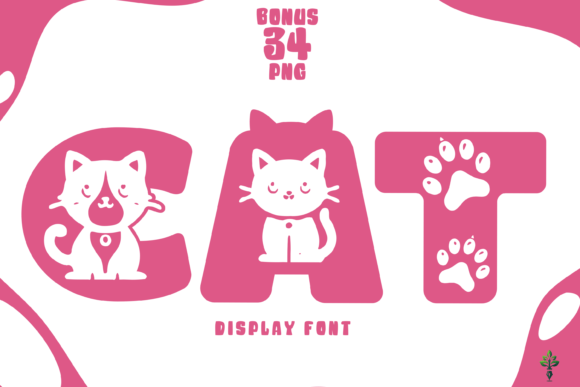
Unleashing Whimsy: The Magical World of Cat Font
I’ll never forget the moment I stumbled upon the perfect font for a children’s t-shirt design project. I was on a tight deadline, and my client wanted something that would make their little ones giggle with delight. As I scrolled through font after font, nothing seemed quite right – until I met Cat. This charming, whimsical typeface has been a game-changer for my designs, and I’m excited to share its magic with you.
I’ve had the pleasure of working with Cat font for several projects, and here’s what I think:
- ✨ Playful Personality: Cat font exudes a sense of fun and playfulness, making it perfect for children’s designs, nursery decor, and even digital art.
- ✅ Ease of Use: The font is surprisingly versatile and easy to use, even for those who aren’t seasoned designers.
- 💫 Attention to Detail: The font’s intricate details and artistic flair make it a standout in any design.
Of course, no font is perfect, and I’ve encountered a few minor quirks:
- 🤔 Limited Formality: Cat font is, by design, quite informal. It might not be the best fit for more serious or corporate projects.
- ⚠️ Occasional Kerning Issues: As with any font, there might be some kerning issues, especially when using all-caps or mixing with other fonts.
- Experiment with OpenType features, such as Stylistic Alternates and Swashes, to add visual interest.
- Explore the Glyphs panel to access additional characters, such as ligatures and stylistic alternates.
The Story Behind Cat Font
According to its creators, Cat font was inspired by the simple joys of childhood – laughter, playtime, and imagination. The designers aimed to craft a font that would evoke a sense of wonder and magic, perfect for bringing children’s creations to life.
| What makes Cat font so special? | Cat font’s unique blend of artistic flair and playfulness makes it perfect for children’s designs and creative projects. |
| Is Cat font suitable for digital art? | Absolutely! Cat font’s whimsical personality shines in digital art, making it perfect for illustrations, graphics, and more. |
| Can I use Cat font for nursery decor? | Cat font is an excellent choice for nursery decor, adding a touch of playfulness and charm to any design. |
With Cat font, you’ll unlock a world of creative possibilities. Whether you’re a designer, crafter, or hobbyist, this enchanting typeface is sure to inspire your next project. So, what are you waiting for? Dive into the magical realm of Cat font and let your imagination run wild!